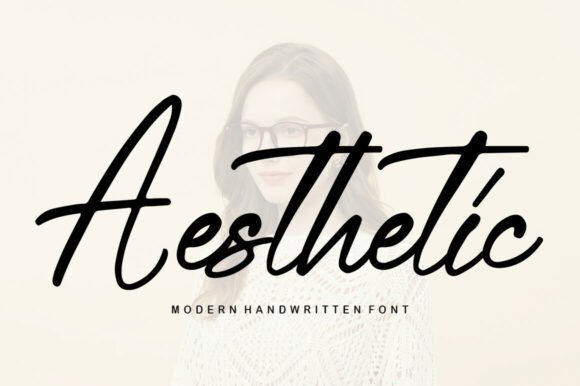
A Delicate Touch: Unveiling the Beauty of Aesthetic Font
Have you ever found yourself staring at a beautifully crafted piece of typography, wondering what makes it so captivating? For many designers, the answer lies in the delicate balance of elegant lines, flowing curves, and well-balanced characters that create a sense of harmony and sophistication. This is precisely what makes Aesthetic Font a game-changer in the world of typography.
Aesthetic Font is a handcrafted, elegant, and flowing handwritten font designed to elevate any design project. Its beautiful characters and refined details make it an ideal choice for a wide range of applications, from branding and advertising to digital media and print materials. For designers, Aesthetic Font offers a valuable resource that can help bring their creative vision to life with precision and flair.
Aesthetic Font Key Features
- Font Size: The font is designed to be highly legible at various font sizes, from 8 to 48 points, making it suitable for a wide range of applications, including body text, headings, and titles.
- Unique Characteristics: Aesthetic Font features a unique blend of modern and classic elements, with subtle flair and ornate details that add a touch of elegance to any design.
- Kerning and Ligatures: Aesthetic Font includes advanced kerning and ligature tables, ensuring seamless text rendering and a polished, professional appearance.
Aesthetic Font Review
As a designer, I was excited to try out the Aesthetic Font, but my expectations were mixed.
The Aesthetic Font has a unique and eye-catching style that can add a touch of sophistication to any design. It’s particularly great for headings and titles, where it can create a strong visual impact.
The font also comes with a wide range of weights and styles, making it easy to customize and adapt to different design needs.
- Unique and stylish design
- Wide range of weights and styles
- Great for headings and titles
While the Aesthetic Font is a great addition to any design arsenal, it has some limitations that designers should be aware of.
The font can be difficult to read in small sizes, and the irregular letterforms can make it challenging to use in large blocks of text.
- Difficult to read in small sizes
- Irregular letterforms can be challenging to use in large blocks of text
The Aesthetic Font is a great choice for designers who want to add a touch of elegance and sophistication to their designs. While it has some limitations, its unique style and customization options make it a valuable addition to any design toolkit.